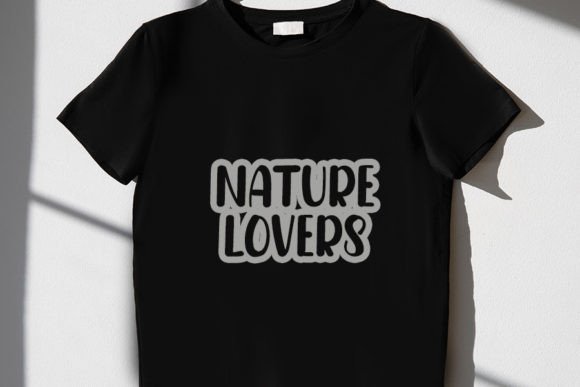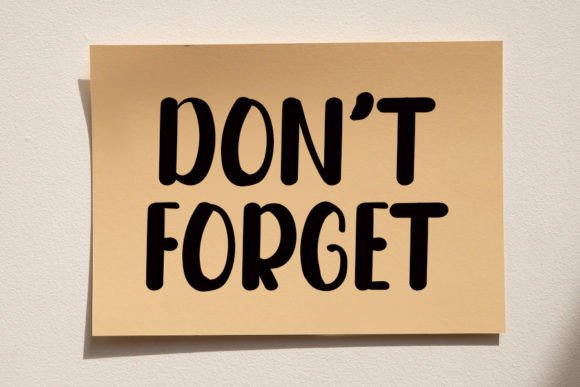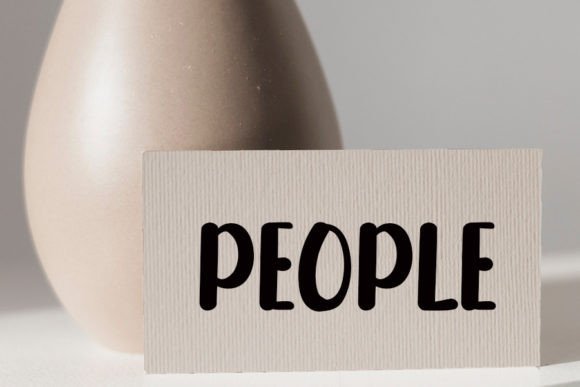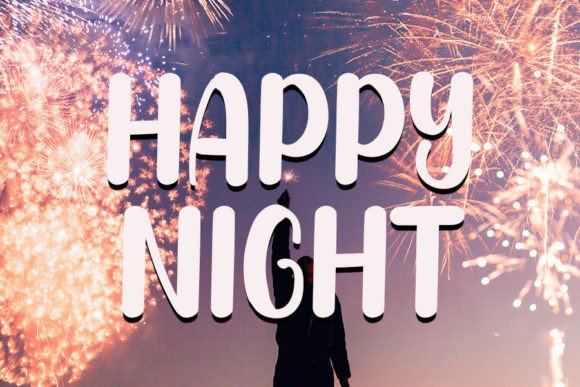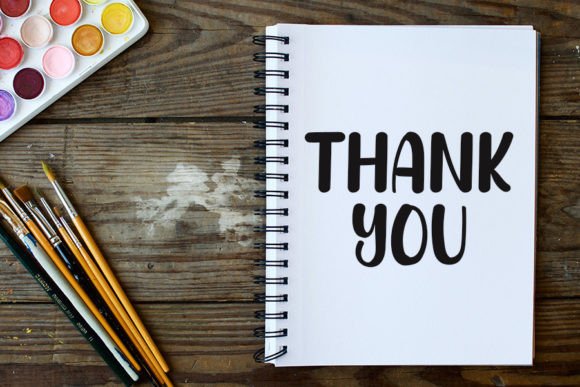
Introducing Animal House Font: A Modern Handwritten Style with Classic Charm
Are you on the hunt for a font that adds a touch of modern elegance and classic sophistication to your design projects? Look no further than the Animal House Font. This cool handwritten font boasts a modern vibe and spotless form, making it the perfect addition to your typography collection. Inspired by classic calligraphy, Animal House Font strikes the perfect balance between style and legibility, ensuring your projects stand out with a unique charm.
The Design Philosophy Behind Animal House Font
Animal House Font was designed with a clear vision: to create a typeface that embodies the essence of modern handwritten styles while paying homage to the timeless beauty of classic calligraphy. The result is a font that is neither too thin nor too thick, but just right – balanced and varied, with a character that adds a personal touch to any project. Whether you’re working on a branding campaign, crafting a bespoke wedding invitation, or designing engaging content for social media, Animal House Font is versatile enough to elevate your work.
Key Features of Animal House Font
- Modern Vibe: Animal House Font captures the essence of contemporary design with its clean lines and modern aesthetic.
- Spotless Form: The font’s well-crafted design ensures clarity and legibility, making it suitable for a wide range of applications.
- Balanced and Varied: With its balanced strokes and varied letterforms, Animal House Font brings a dynamic and engaging quality to your text.
- Inspired by Classic Calligraphy: The font’s roots in traditional calligraphy give it a timeless elegance that works beautifully in both digital and print media.
Use Cases for Animal House Font
The versatility of Animal House Font makes it suitable for a multitude of design projects. Here are a few ideas to get you started:
- Branding and Logotypes: Use Animal House Font to create a memorable brand identity that stands out from the competition.
- Wedding and Event Stationery: Add a touch of elegance and sophistication to your wedding invitations, menus, and other event materials.
- Social Media Graphics: Elevate your social media content with stylish text overlays and captions that capture your audience’s attention.
- Packaging Design: Make your product packaging more appealing with the unique and modern charm of Animal House Font.
Why Choose Animal House Font?
In a world where design trends are constantly evolving, having a font that can adapt and stand the test of time is invaluable. Animal House Font offers:
- Uniqueness: Stand out with a font that is both distinctive and stylish.
- Versatility: Suitable for a wide range of projects, from digital content to print materials.
- Elegance: Bring a touch of classic sophistication to your designs with a modern twist.
Animal House Font is more than just a typeface; it’s a design statement. With its modern vibe, spotless form, and classic inspiration, it’s the perfect choice for designers and crafters looking to add a unique touch to their projects. Whether you’re aiming for elegance, modernity, or a blend of both, Animal House Font is sure to exceed your expectations. Explore the possibilities and let your creativity shine with this versatile and stylish font.